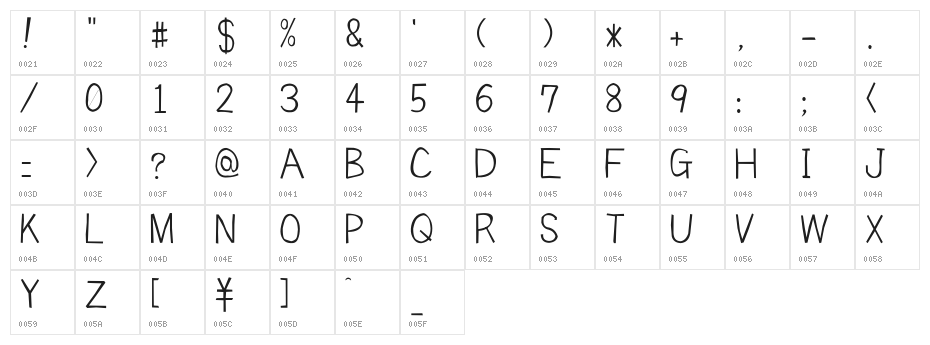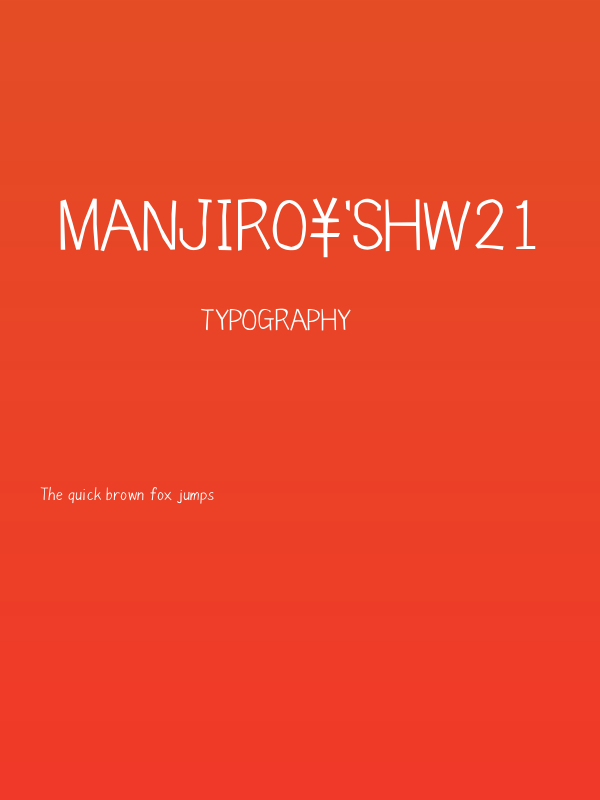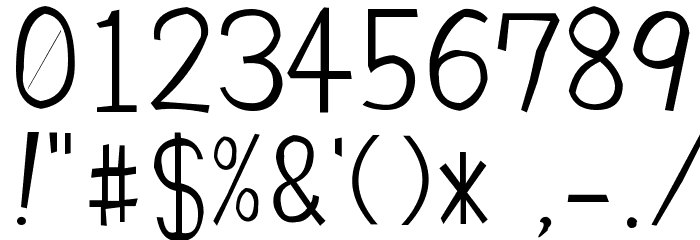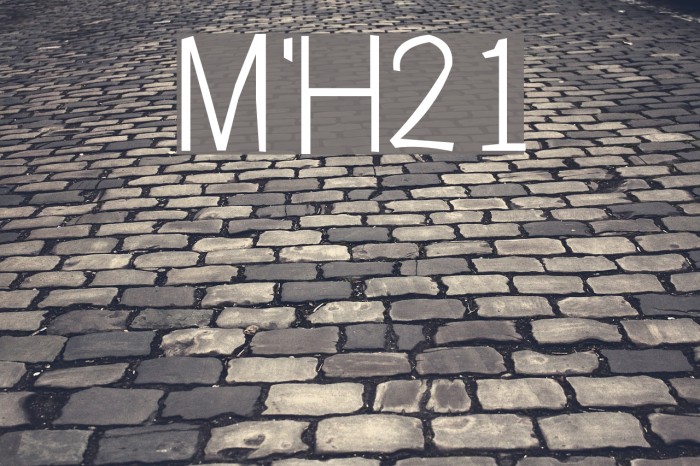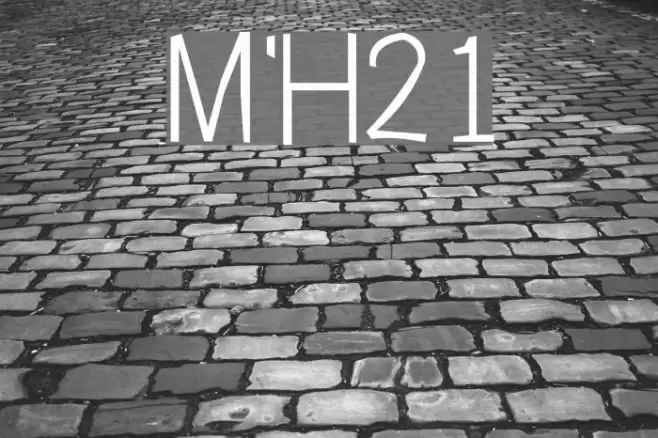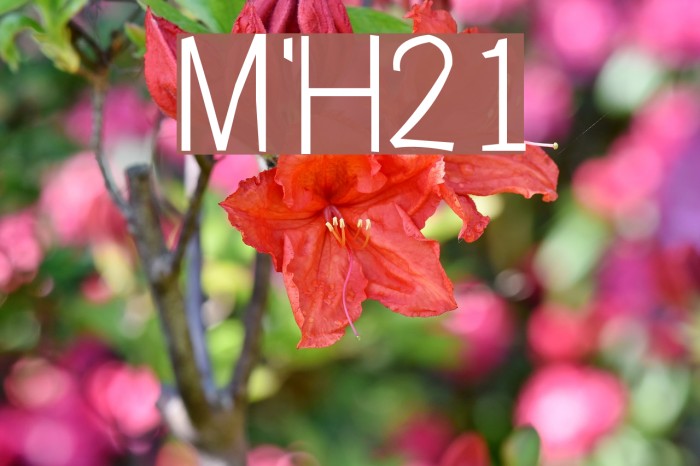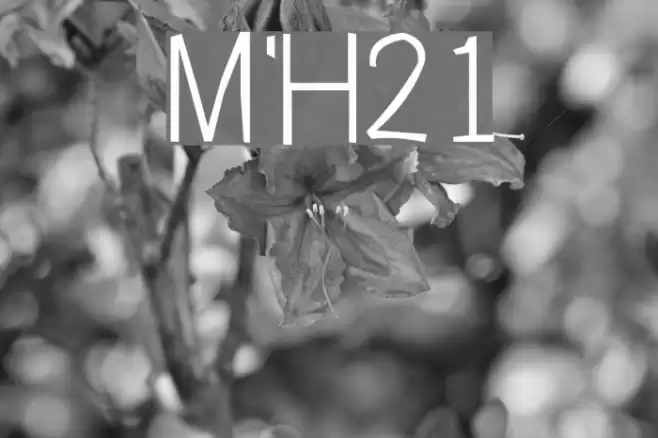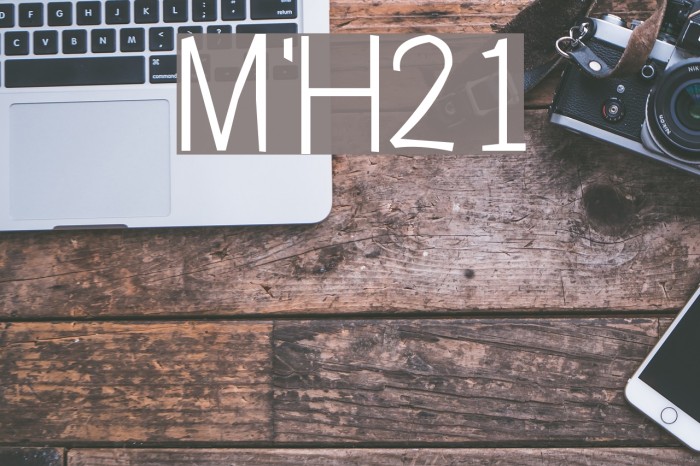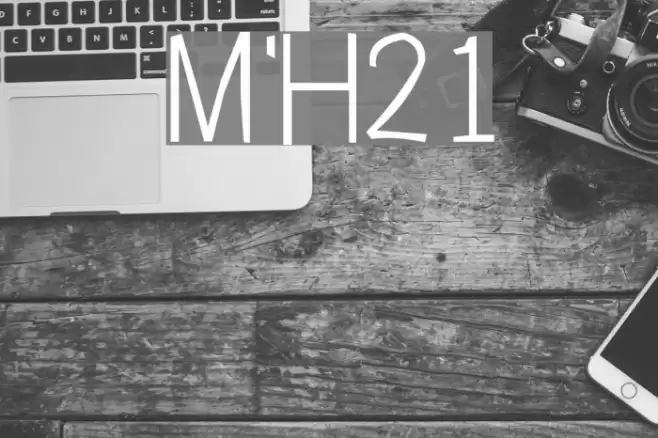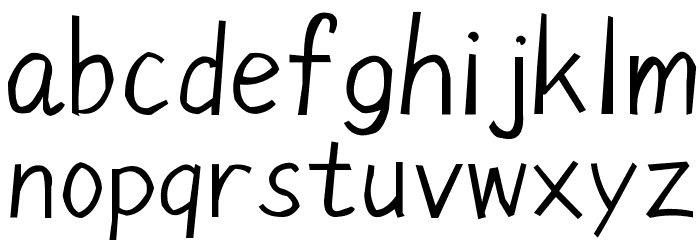
Manjiro'sHw21 Font
Manjiro'sHw21 Description
This font features a playful and informal style with a handwritten appearance. The characters are slightly irregular, adding a casual and friendly feel. The uppercase letters are tall and narrow, while the lowercase letters have a more relaxed and rounded form. The numbers are consistent with the overall style, maintaining the same playful characteristics. Special characters are included, complementing the font's informal nature. The strokes are consistent in width, providing a uniform look across all characters.
| Overall Style | Casual |
| Use Case | Headlines, Informal text, Branding |
| Proposed Projects | Ideal for children's books, greeting cards, casual invitations, and playful branding projects. |